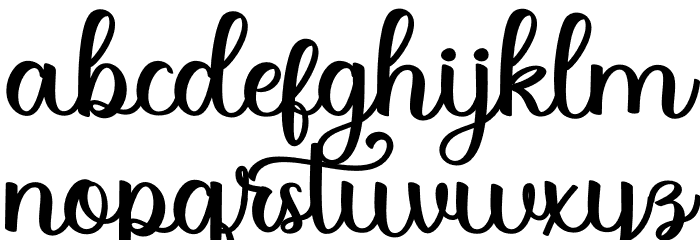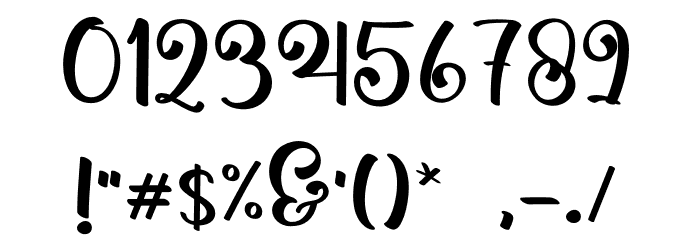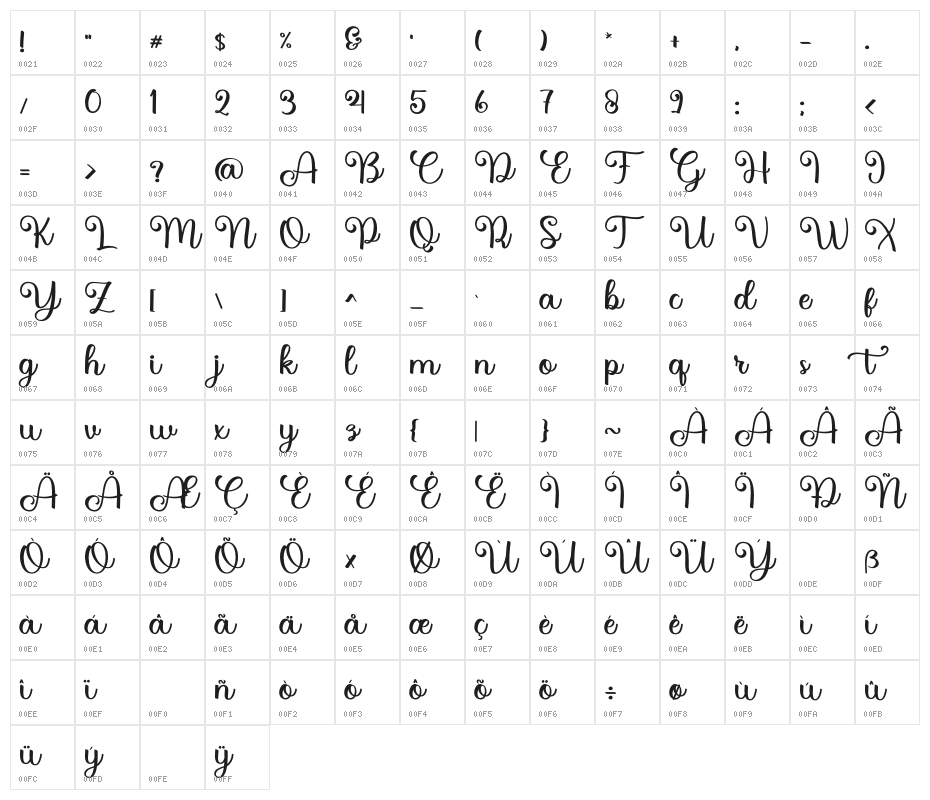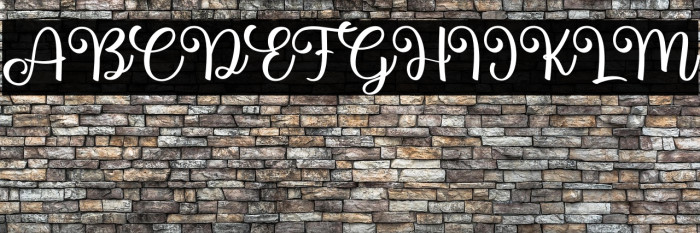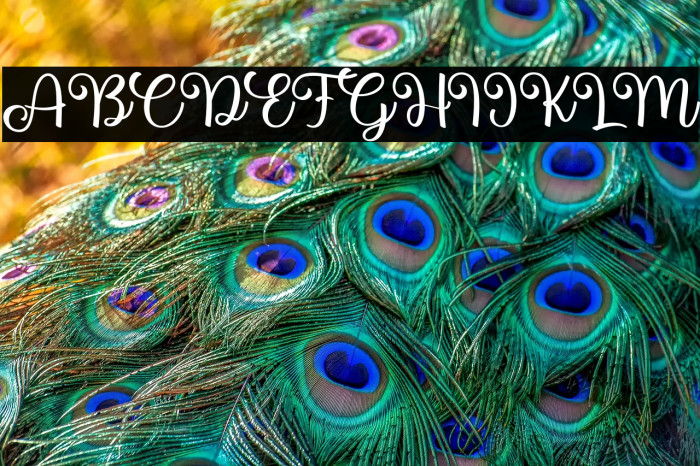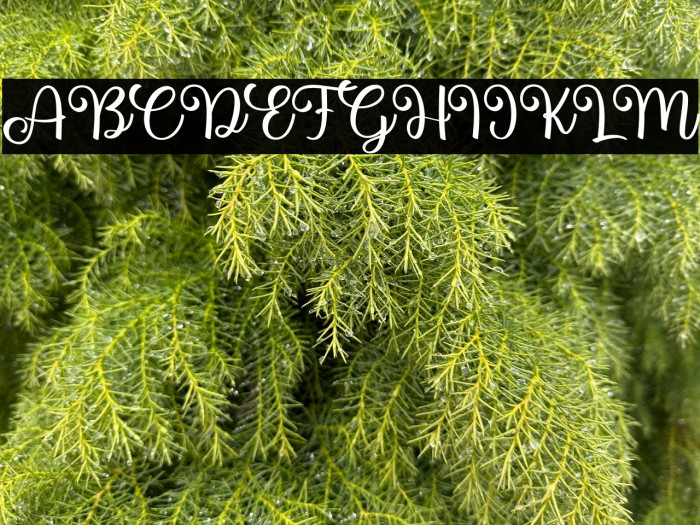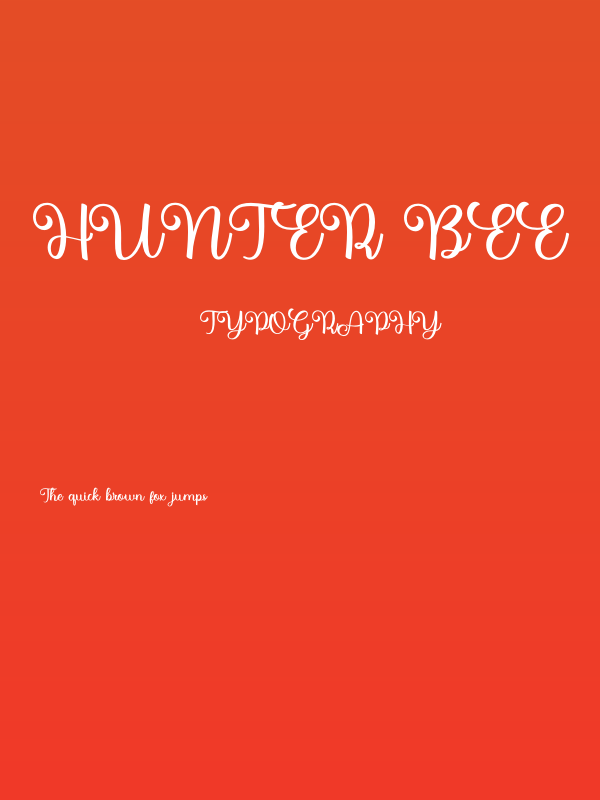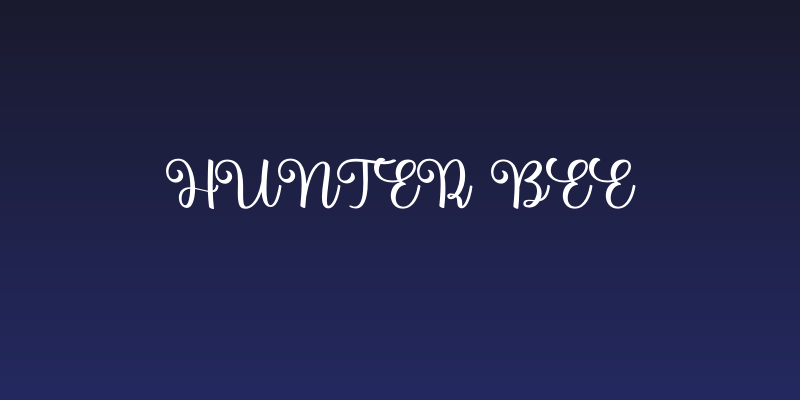
Hunter Bee Font
This font features a playful and whimsical script style, characterized by its flowing, interconnected letters. The uppercase letters exhibit a unique blend of loops and curls, adding a touch of elegance and flair. The lowercase letters maintain a consistent, smooth flow, with some characters extending into decorative swashes. The numerals are bold and rounded, complementing the overall style. Special characters are creatively designed, maintaining the font's lively and dynamic appearance. This font is perfect for projects that require a touch of personality and charm.
A playful and whimsical script font with flowing, interconnected letters and decorative swashes.
- Font: Hunter Bee
- Proposed Projects: Ideal for wedding invitations, greeting cards, branding, and logo design.
- Category: Script
- Use Case: Logos, Invitations, Greeting Cards